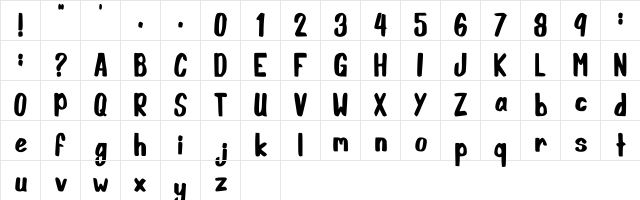
Sushibrush Regular
Design Context for Sushibrush Typeface
Sushibrush flows with the natural rhythm of handwritten lettering, making it ideal for designs that call for warmth and personal expression.
Font Pairing: Combine Sushibrush with a simple geometric sans for maximum contrast — the tension between flowing curves and clean structure is a classic typographic pairing.
Pro Tip: Pair Sushibrush with a clean sans-serif for supporting text. The contrast between fluid script and geometric structure creates an elegant typographic hierarchy.